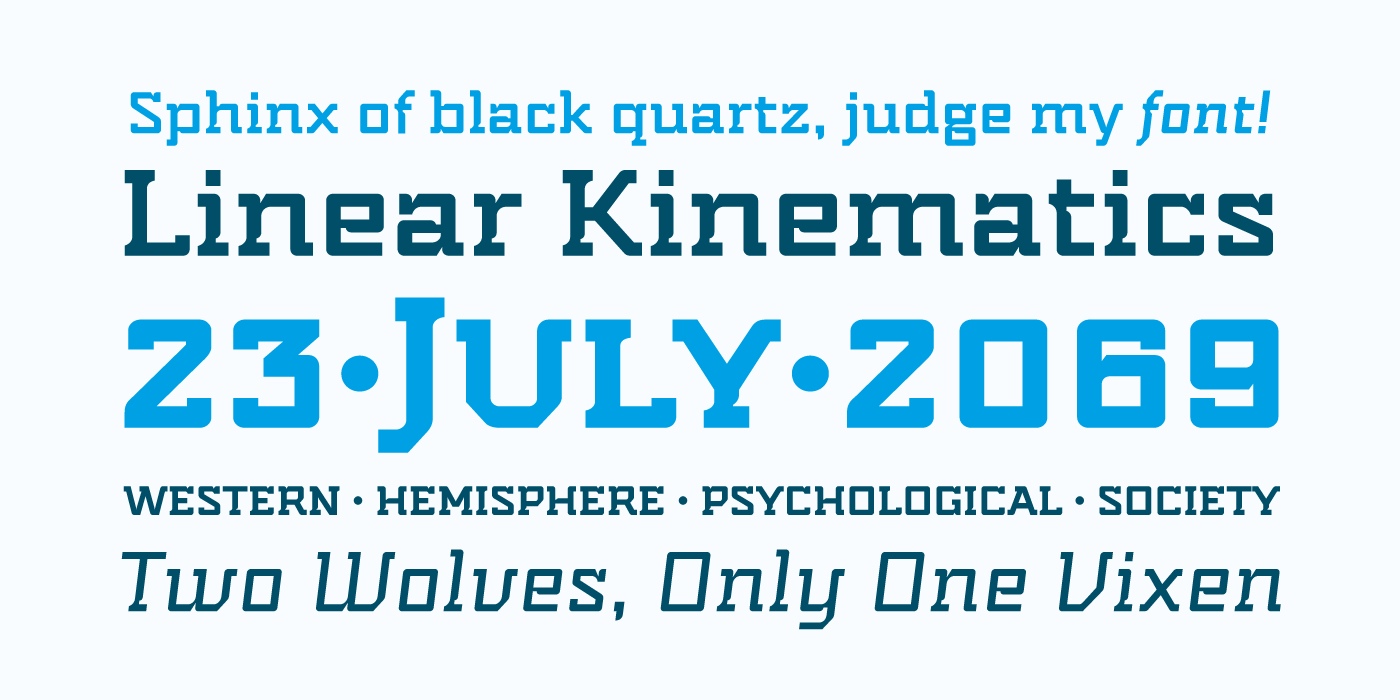
MM Indento Font
MM Indento Font is perfect for modern publishing houses, contemporary editorial design, sophisticated magazine layouts, innovative digital platforms, cutting-edge typography studios, and progressive content creation services. Its distinctive character makes it ideal for design-forward publications, experimental graphic design agencies, avant-garde art magazines, modern literary journals, creative writing platforms, and any project requiring typographic innovation with editorial excellence and contemporary publishing sophistication.
This font is exciting because it pushes the boundaries of traditional typography while maintaining exceptional readability and editorial functionality for modern content consumption. The uniquely crafted letterforms demonstrate innovative design thinking and typographic experimentation, creating visual interest that captures attention while preserving the clarity essential for extended reading experiences and professional publishing standards.
The MM Indento Font family typically includes Light, Regular, Medium, and Bold weights with experimental alternates, editorial ligatures, and innovative design elements that enhance its progressive personality. This comprehensive collection enables publishers and designers to create distinctive brand systems that maintain editorial credibility while offering creative flexibility for various publishing applications requiring both typographic innovation and professional presentation standards.